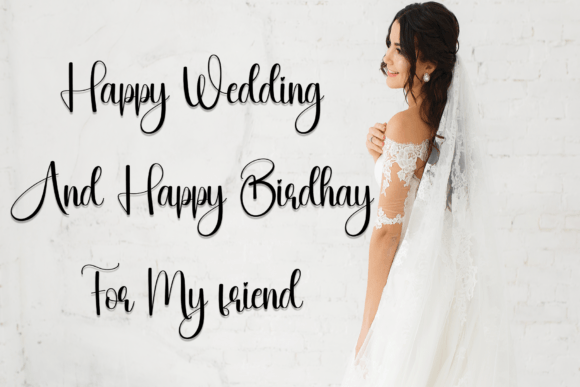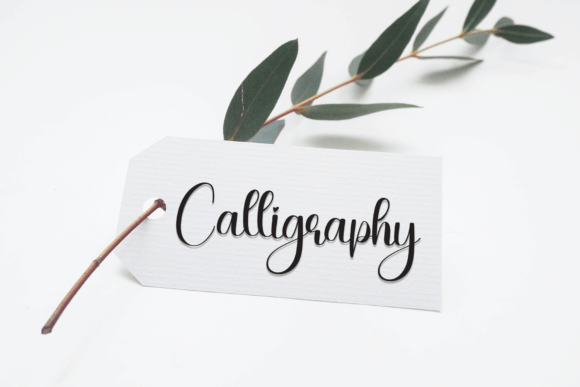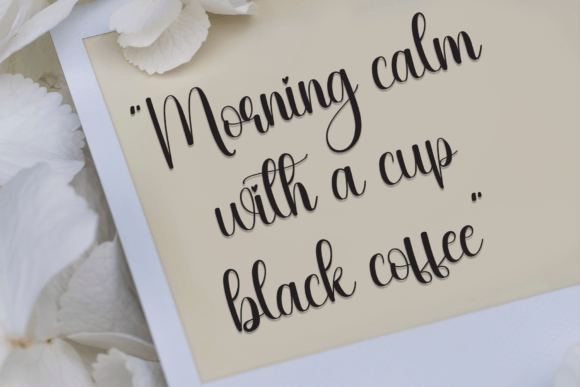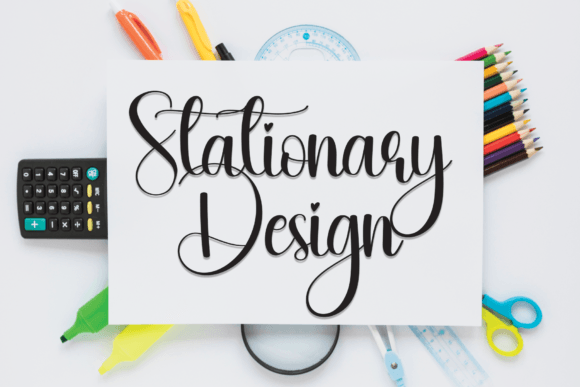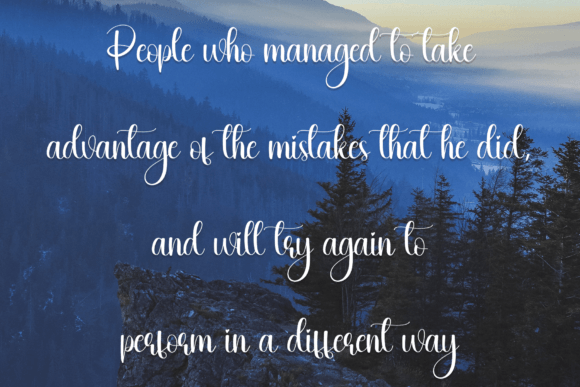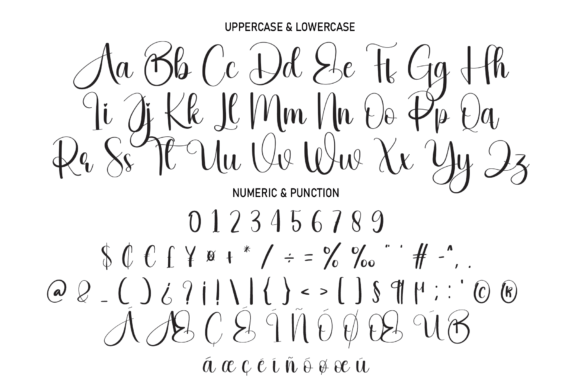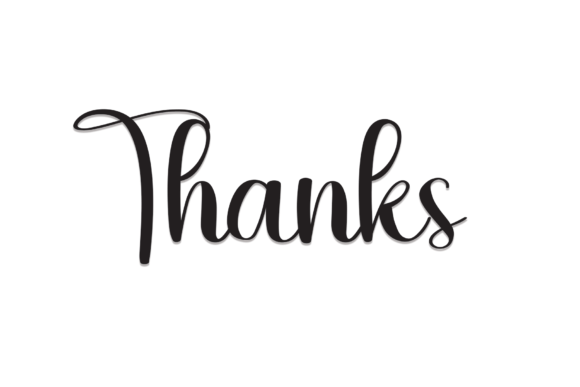
Earring Font
Earring Handwritten Font – Romantic and Flowing Typeface
The Earring Handwritten Font is a romantic and beautifully flowing script typeface designed to bring elegance to your projects. With its graceful strokes and natural rhythm, it captures the charm of handwritten lettering while keeping a professional appeal. Whether you’re creating wedding invitations, product packaging, or social media designs, this font ensures your work looks stunning.
A Script Font with Romantic Elegance
The Earring Handwritten Font blends smooth, flowing lines with timeless handwritten details. Its romantic curves make it suitable for heartfelt designs, while its readability ensures versatility across digital and print applications. Because of this, it adapts seamlessly to many creative needs.
Perfect for Invitations and Stationery
One of the best uses of the Earring Handwritten Font is in event stationery. Wedding invitations, thank-you cards, and menus gain elegance from its romantic handwritten look. At the same time, it enhances posters, logos, and product packaging, adding sophistication and personality to every design.
The Earring Handwritten Font adapts easily to different creative projects. From labels and photography watermarks to business cards and social media posts, it provides a romantic handwritten style that works across contexts. As a result, it is a reliable choice for both professionals and hobbyists.
Why Designers Love Earring Font
Designers appreciate the Earring HandwrittenFont because it combines elegance with usability. Its flowing handwritten strokes bring warmth and personality to projects, while its clarity ensures polished outcomes. This makes it a must-have font for creative toolkits.